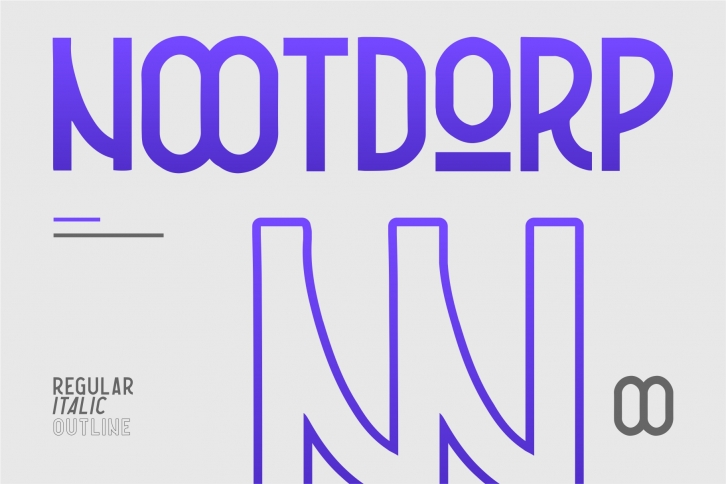
NOOTDORP is a great font that was designed by Garisman Studio. Imagine the amount of combinations you can create using this font! The archive is 14.56 MB and it was released on March 8, 2019. NOOTDORP looks beautiful on wedding invitations, greeting cards, logos, posters, labels, t-shirt designs, logos, business cards and is perfect for use in ink or watercolor works, fashion, magazines, packaging and food menus, children's books and more!